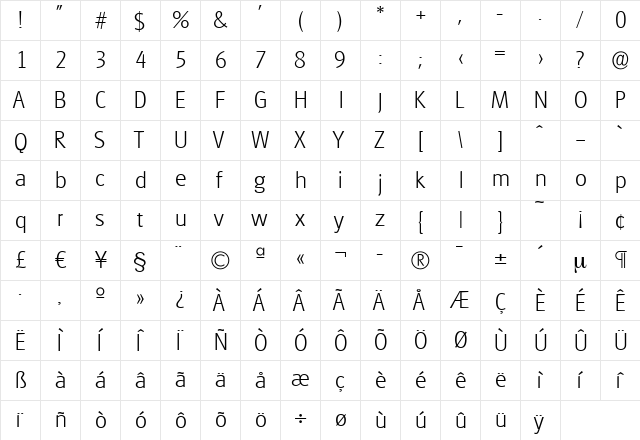
RichardBecker-ExtraLight Regular
Design Context for RichardBecker-ExtraLight Typeface
RichardBecker-ExtraLight takes a measured approach to typography — its balanced proportions and neutral character make it a reliable workhorse for both digital and print work. Its slender proportions lend an understated elegance to any composition.